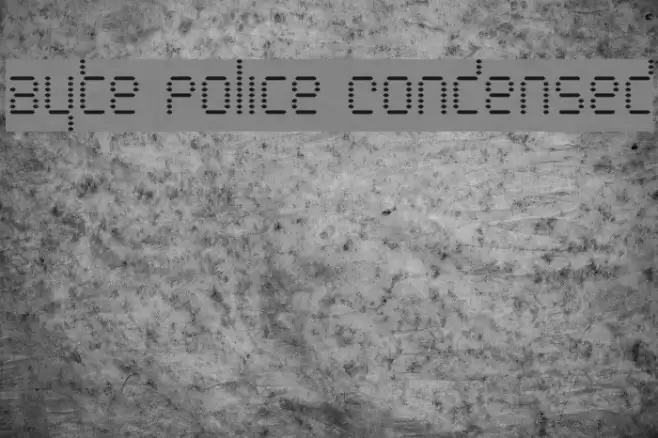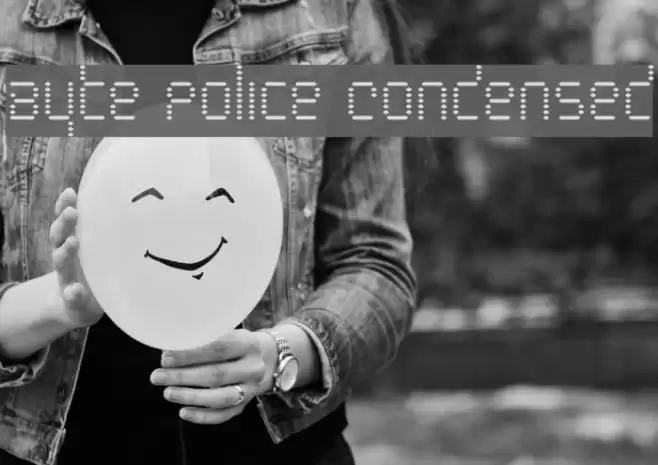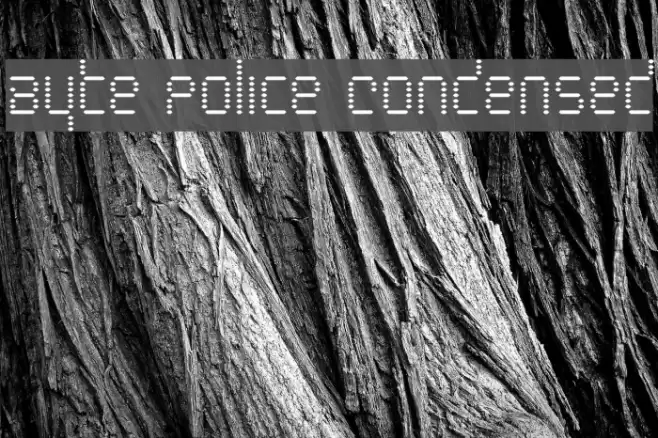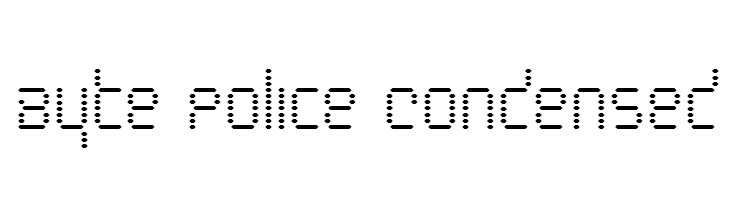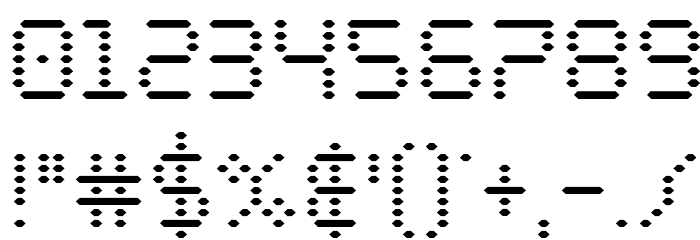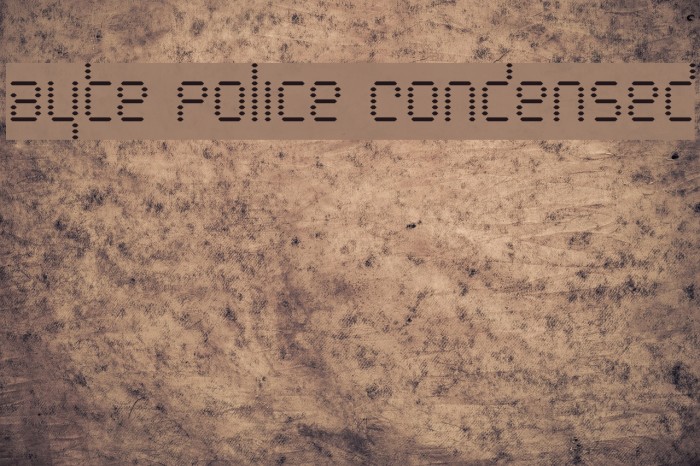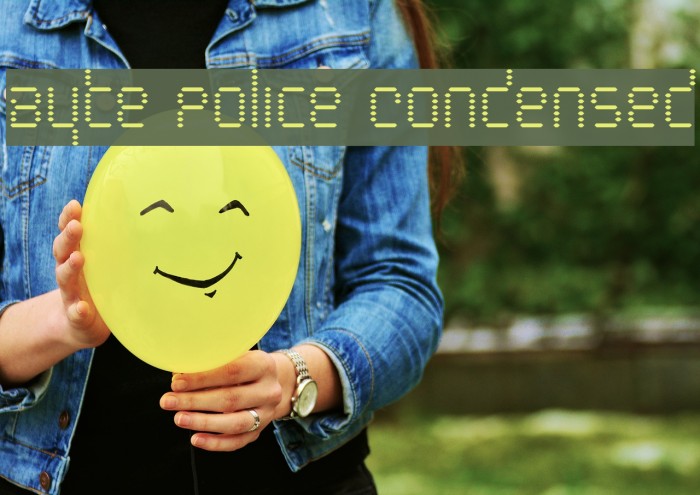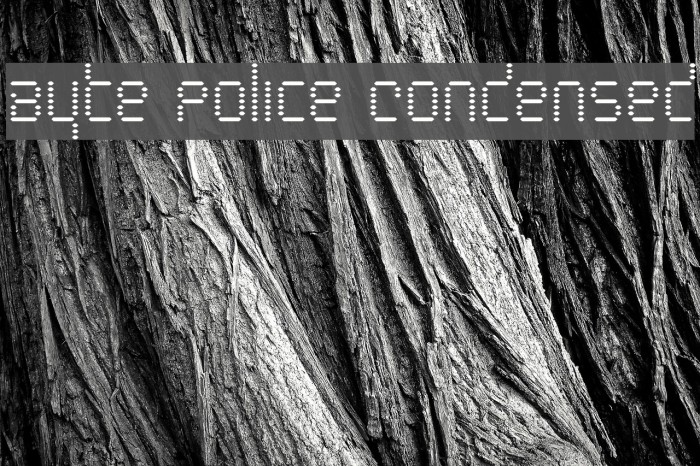
Byte Police Condensed Font
Byte Police Condensed Description
This font features a unique design composed of small dots forming each character, reminiscent of digital or electronic displays. The characters are evenly spaced and maintain a consistent height, giving it a structured and modern appearance. The use of dots creates a pixelated effect, making it ideal for tech-themed projects. The font includes a full set of uppercase and lowercase letters, numbers, and a variety of special characters, all maintaining the same dot-based style. Its condensed form allows for efficient use of space, making it suitable for compact designs.
A dot-based, pixelated font with a modern, tech-inspired look from Uncategorized fonts.
- Proposed Projects: Ideal for digital displays, tech branding, futuristic designs, and electronic-themed projects.
- Use Case: Logos, Headlines, Digital displays